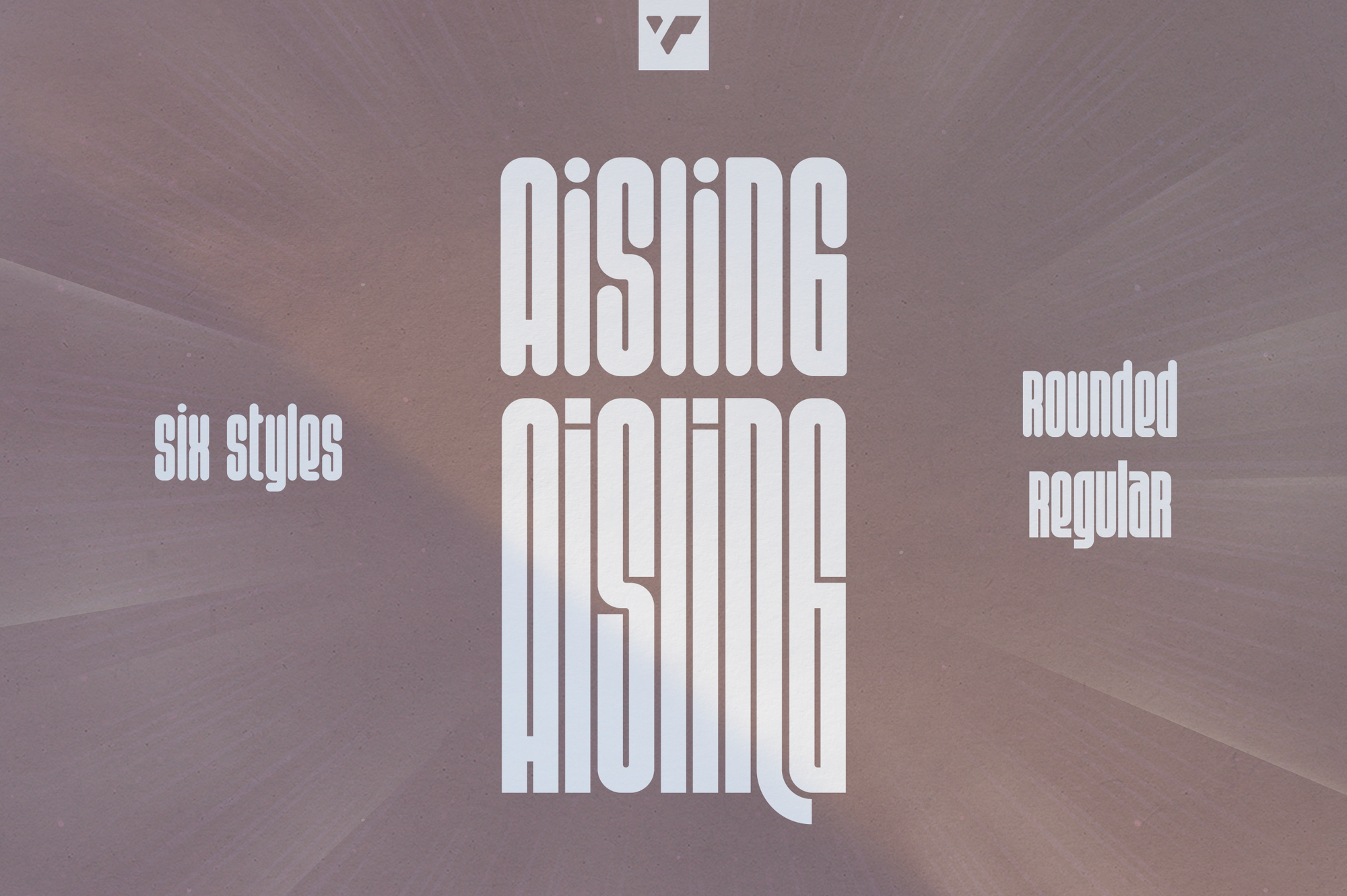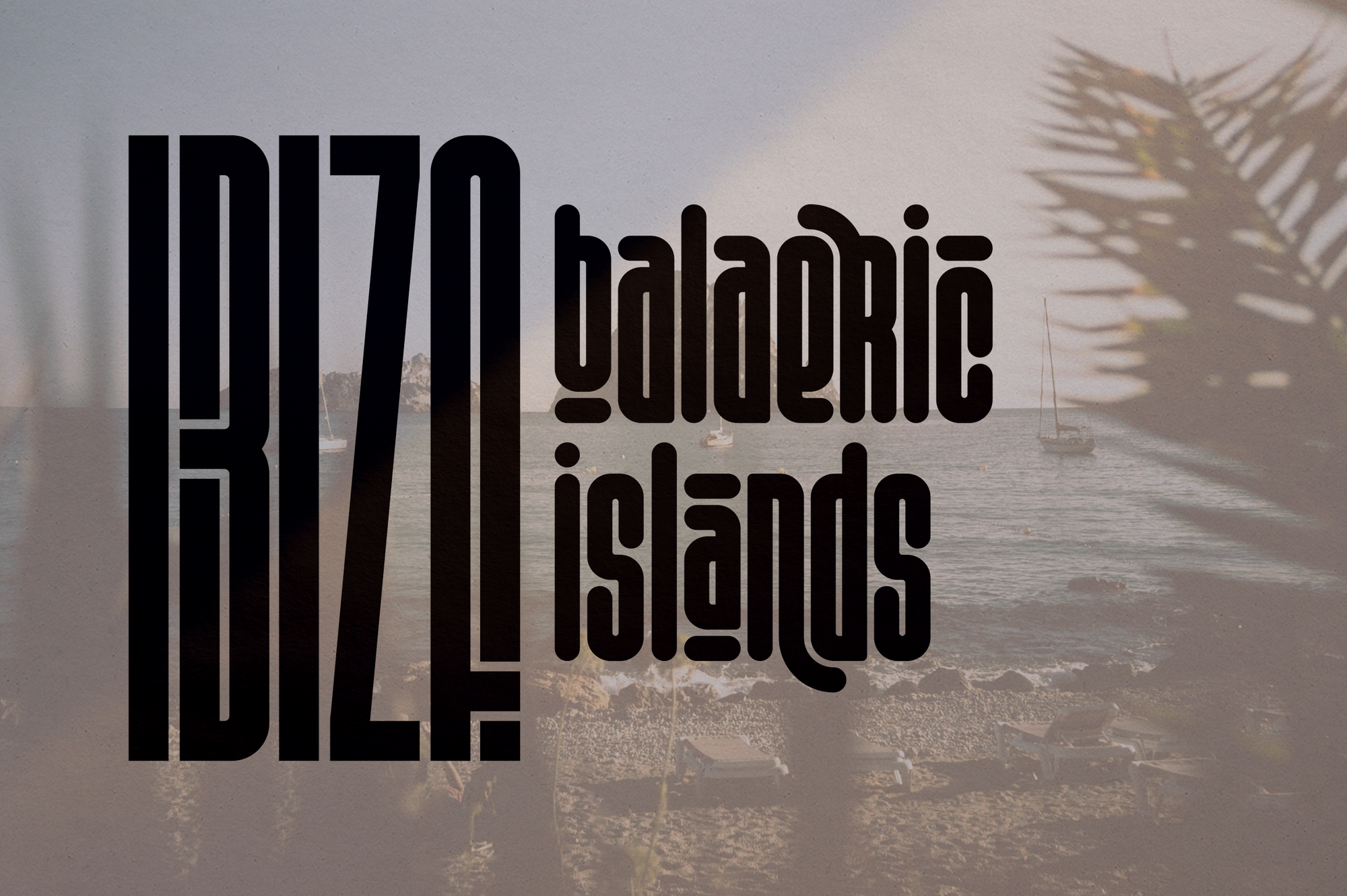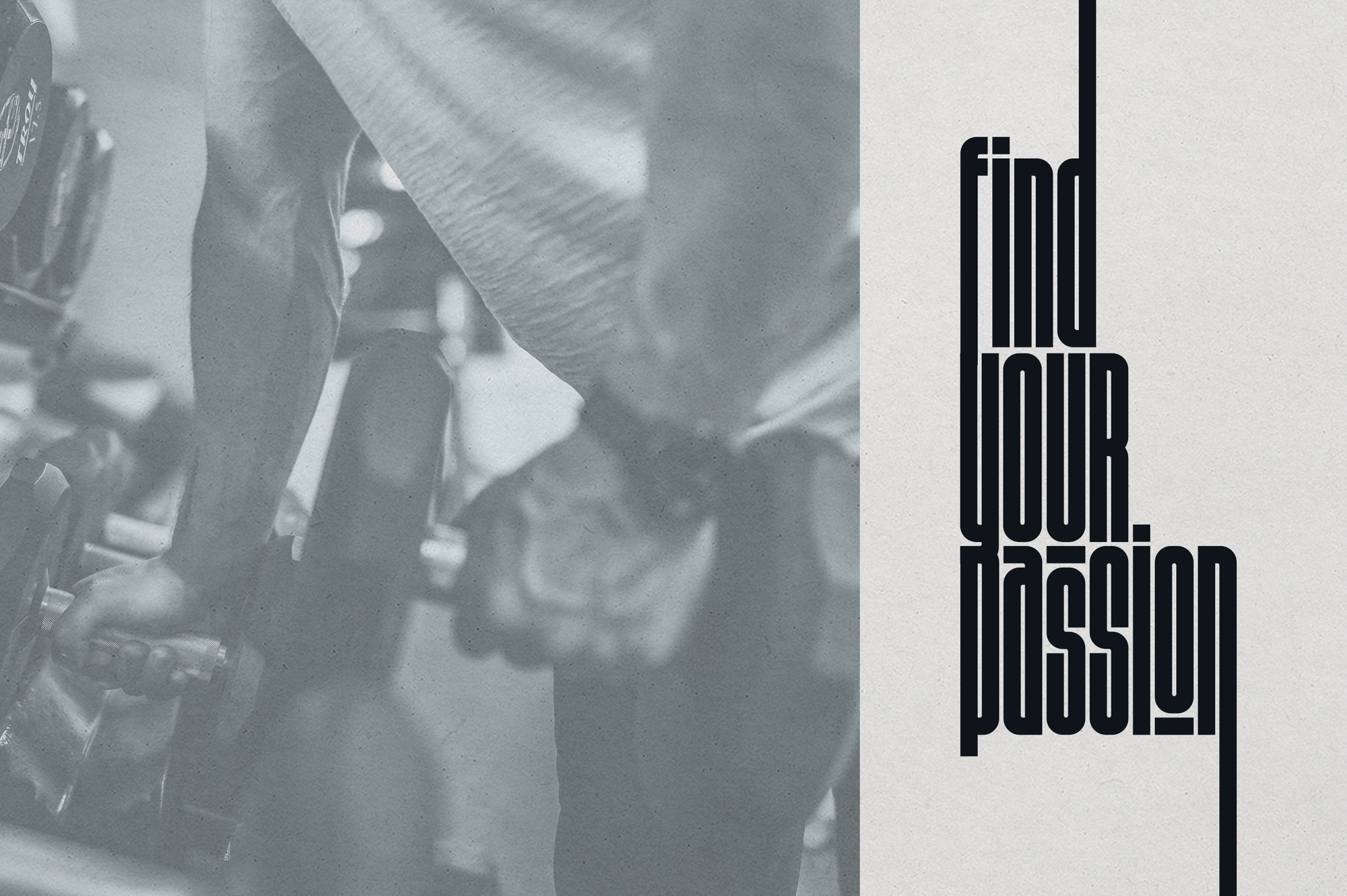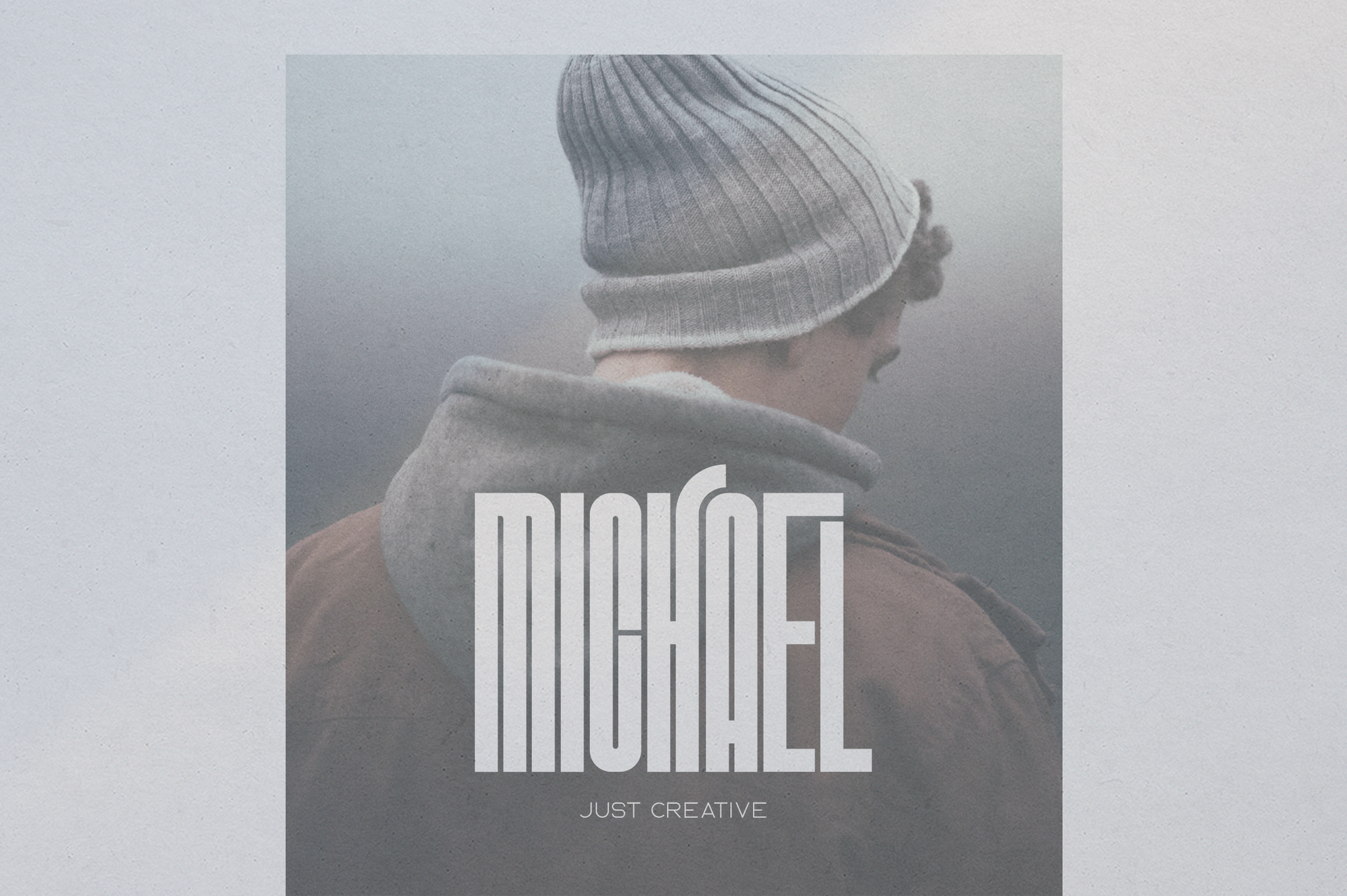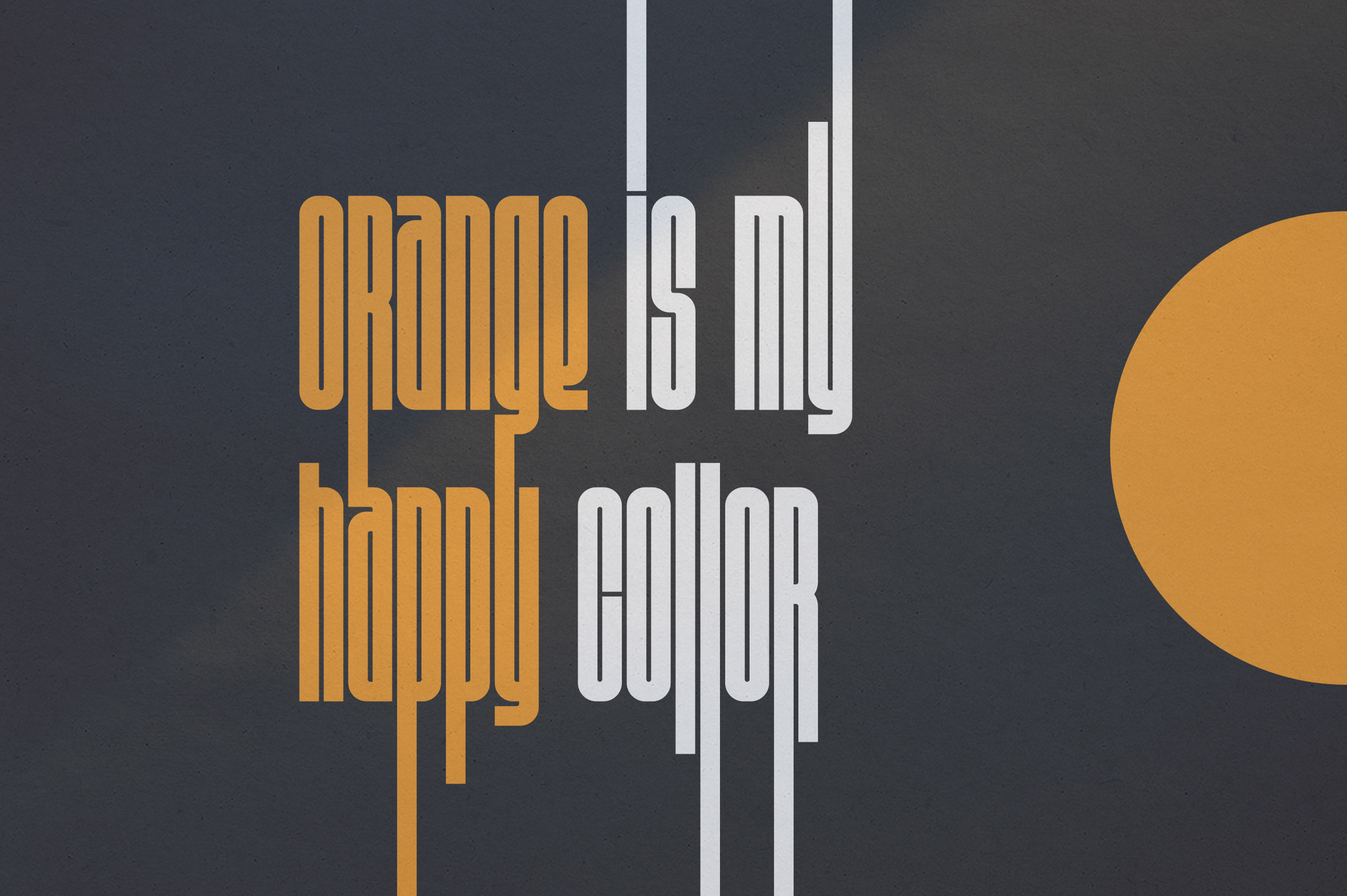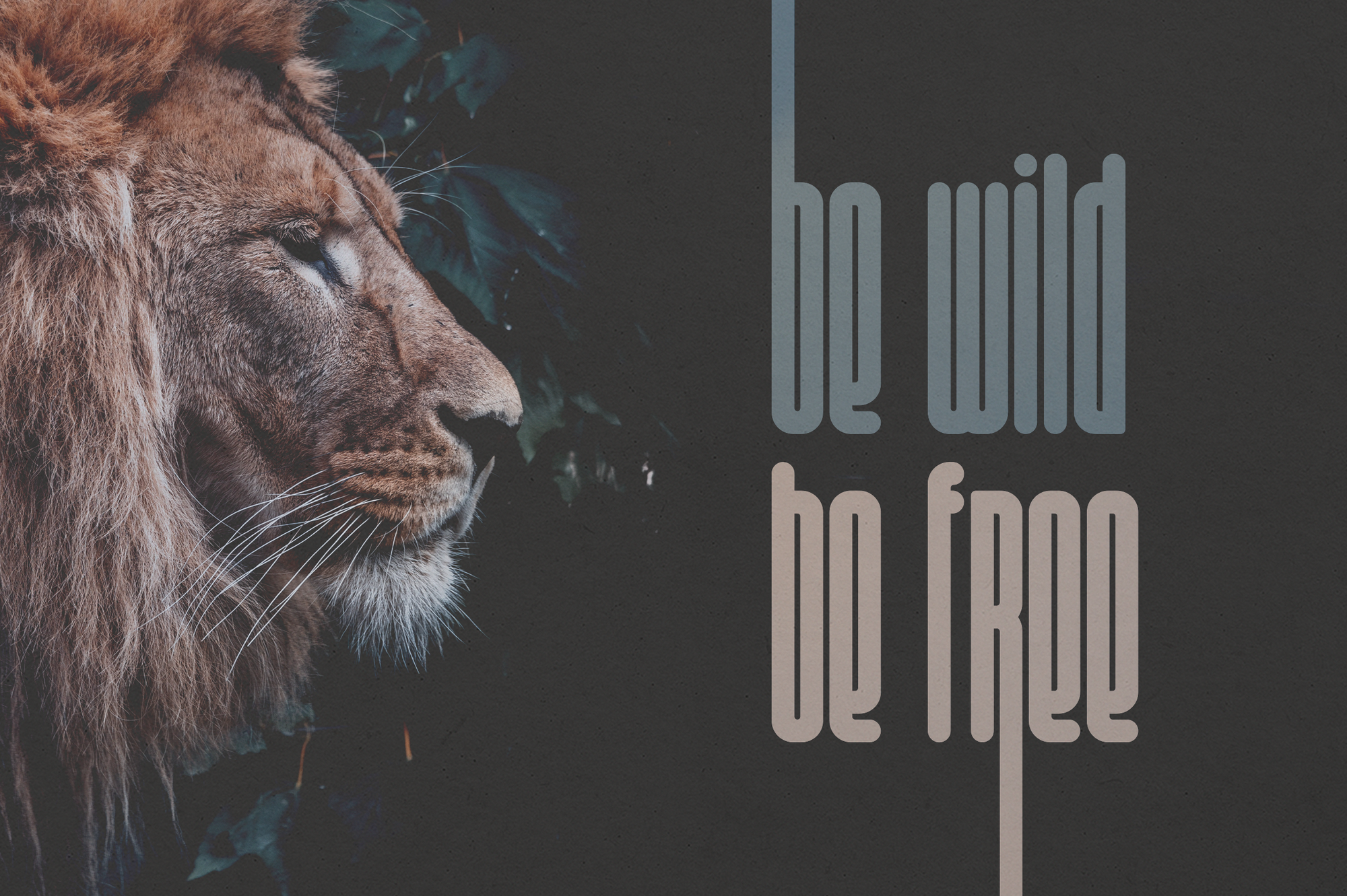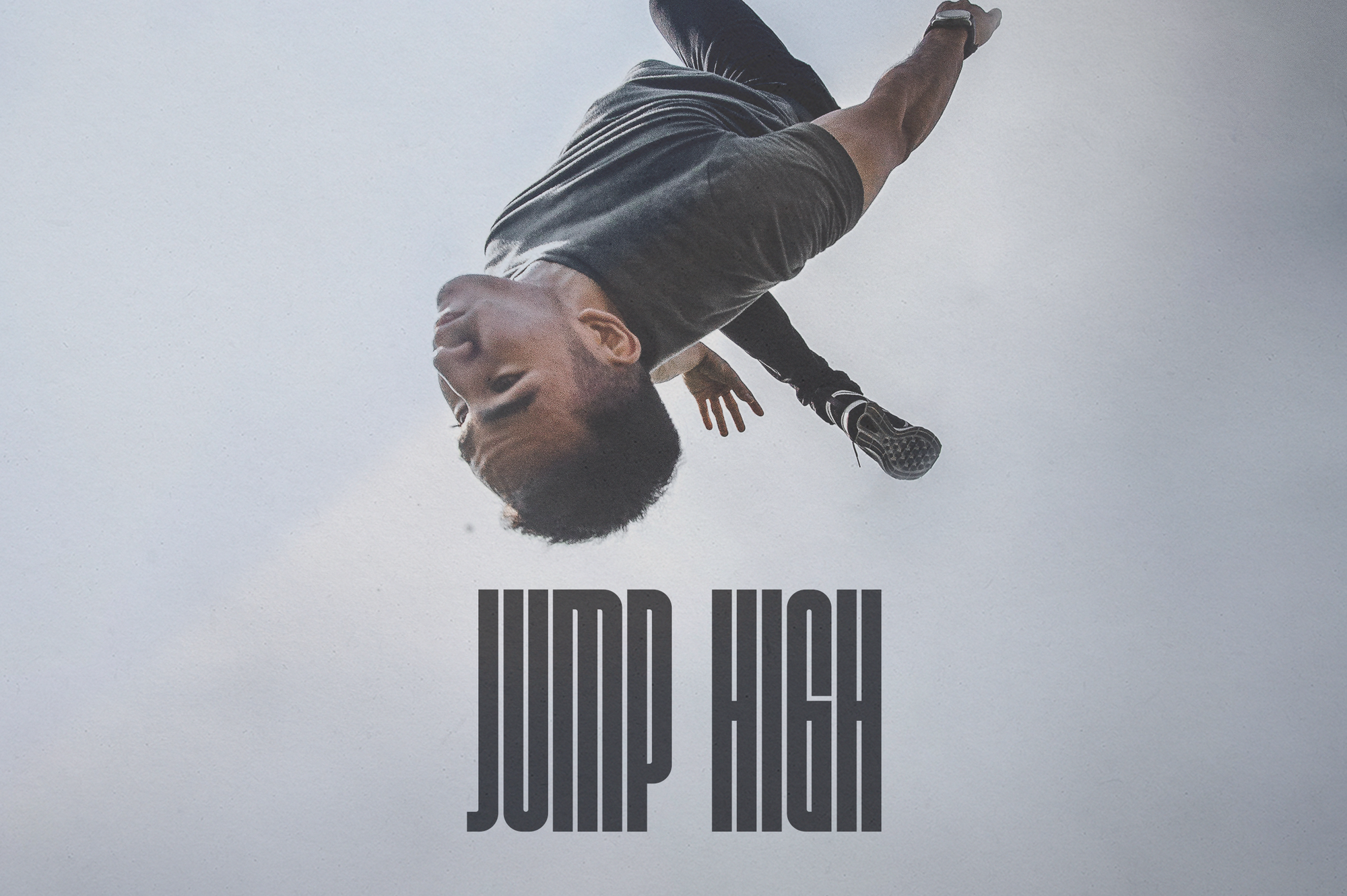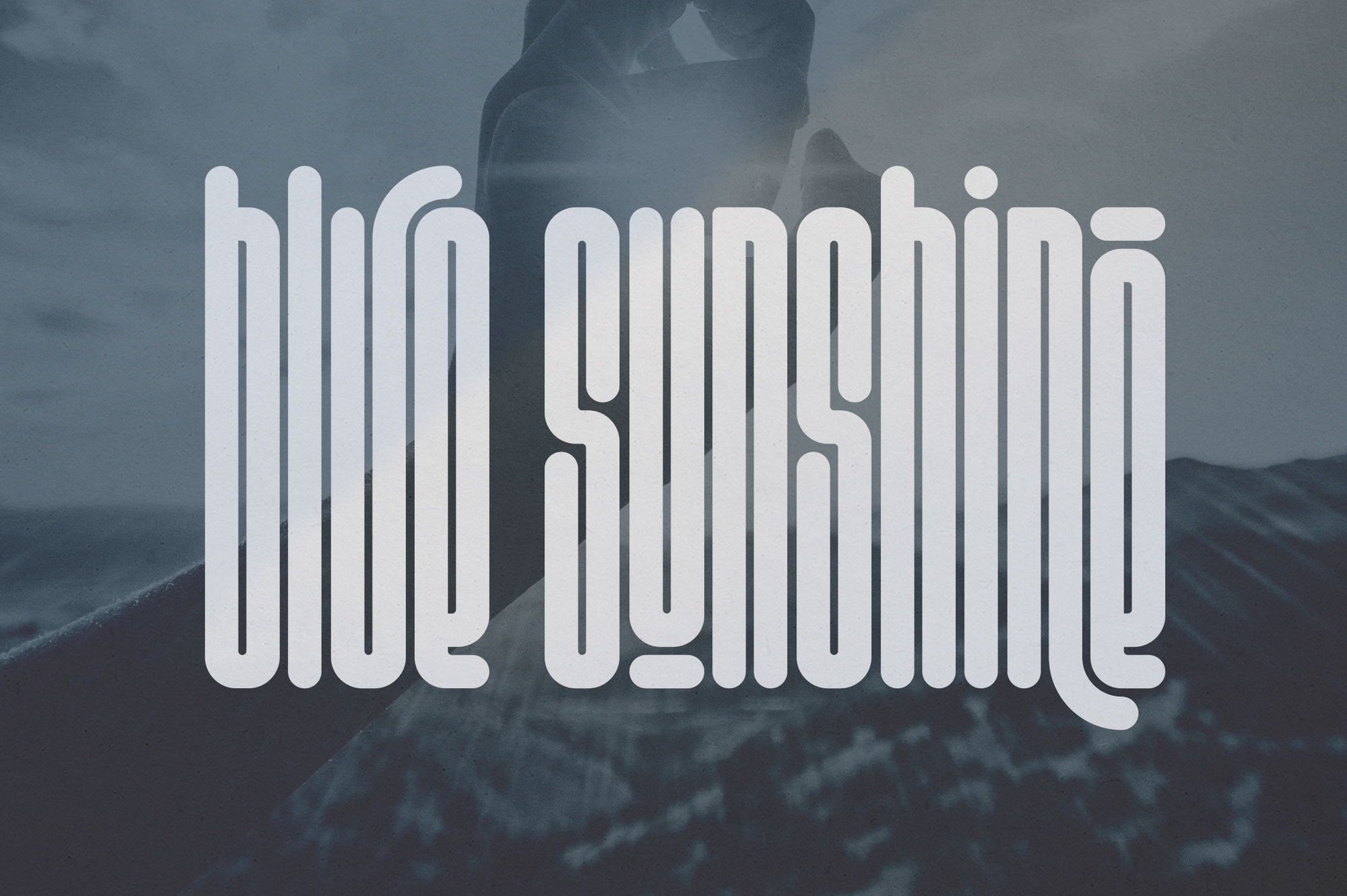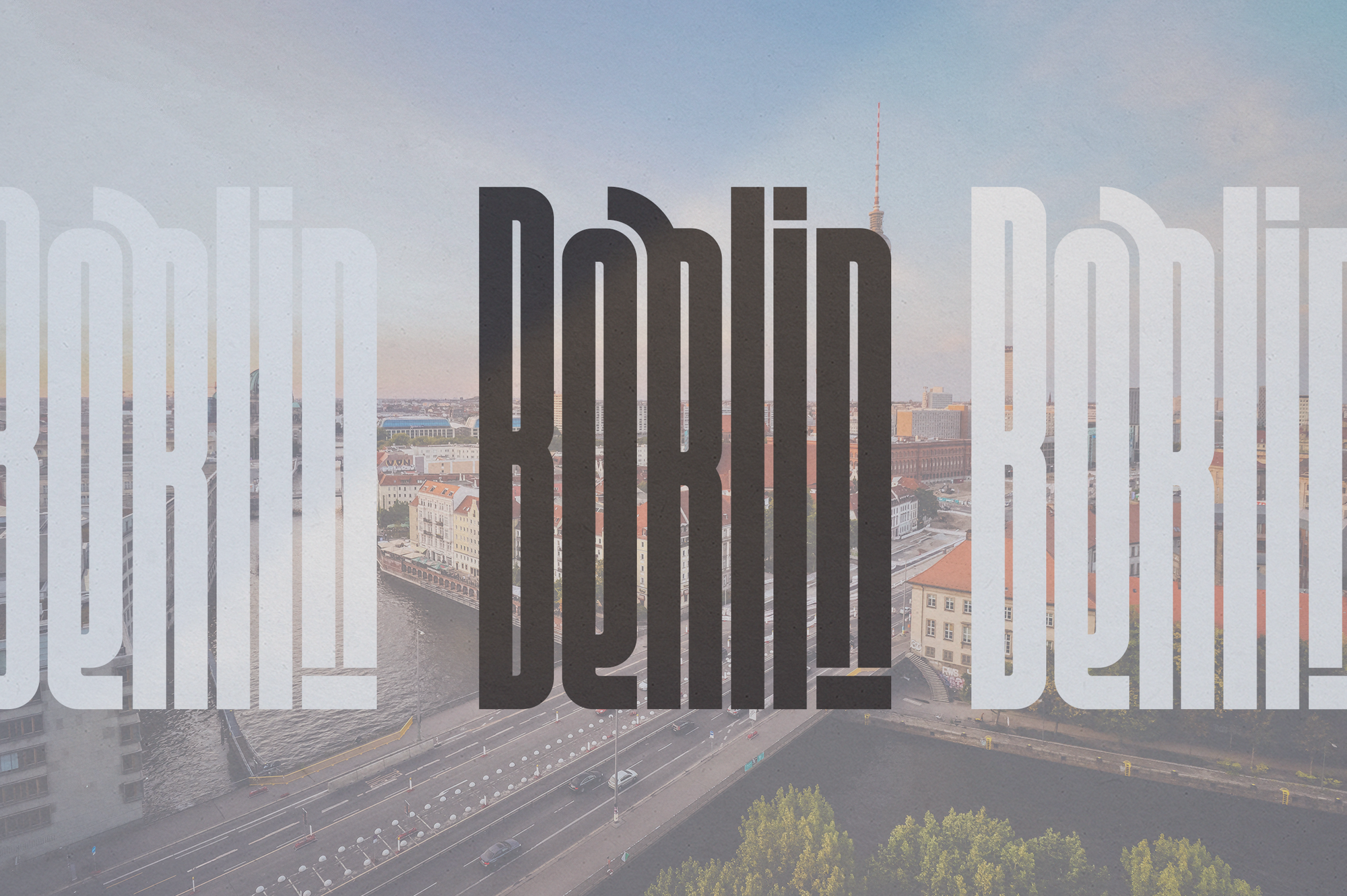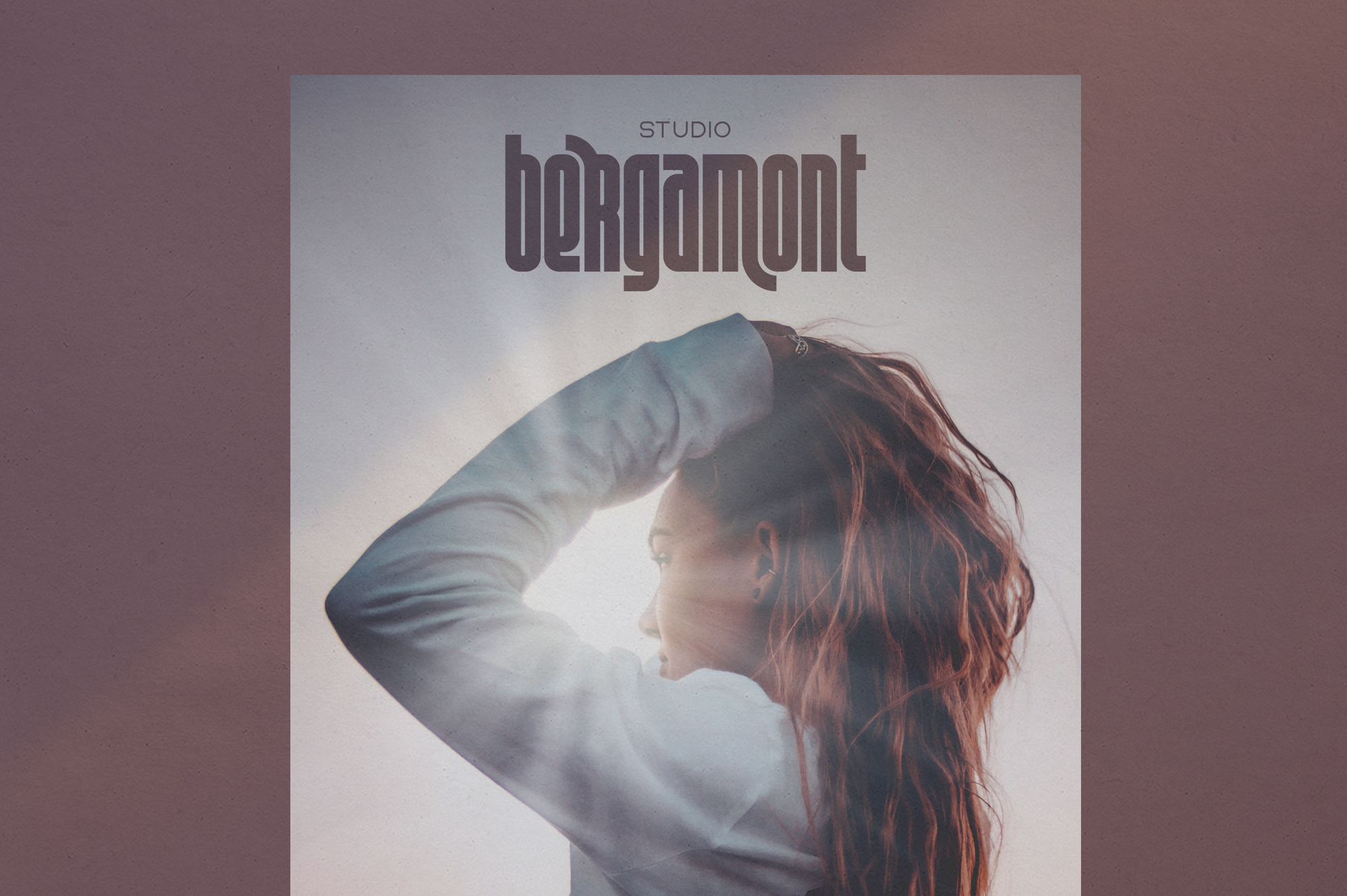
Aisling – Creative Display Typeface
Introducing Aisling – Creative Display Typeface loaded with 6 fonts
Aisling is long, futuristic typeface with 6 fonts loaded with ligature glyphs, alternates and multilingual support to enchant your next project. Very versatile fonts that works great in large and small sizes.
Aisling is perfect for branding projects, home-ware designs, product packaging, magazine headers – or simply as a stylish text overlay to any background image.
- Uppercase, lowercase, numeral, punctuation & Symbol
- Short – Straight and Rounded
- Regular – Straight and Rounded
- Long – Straight and Rounded
- ligature glyphs
- alternates
- Multilingual support